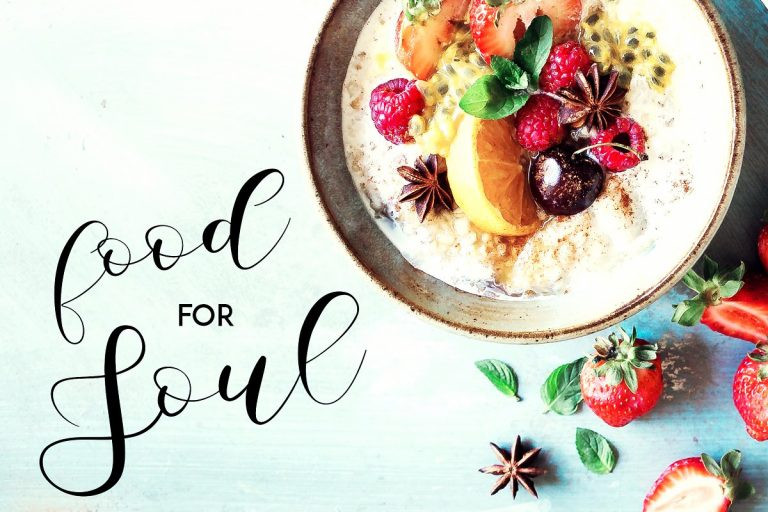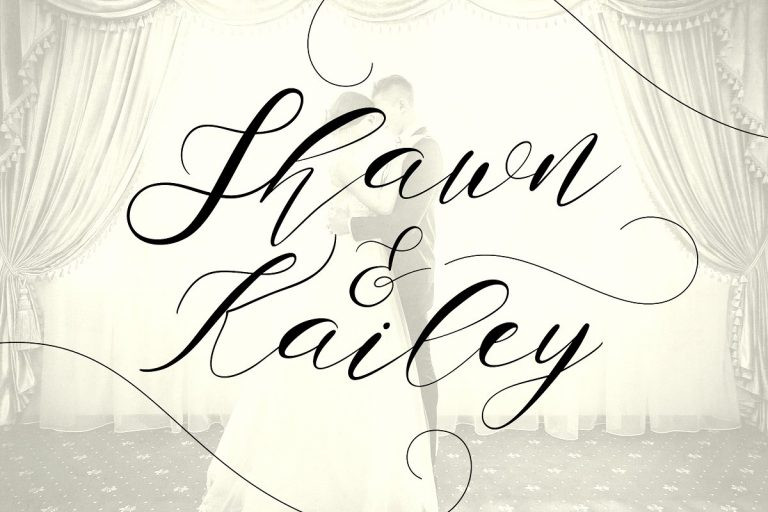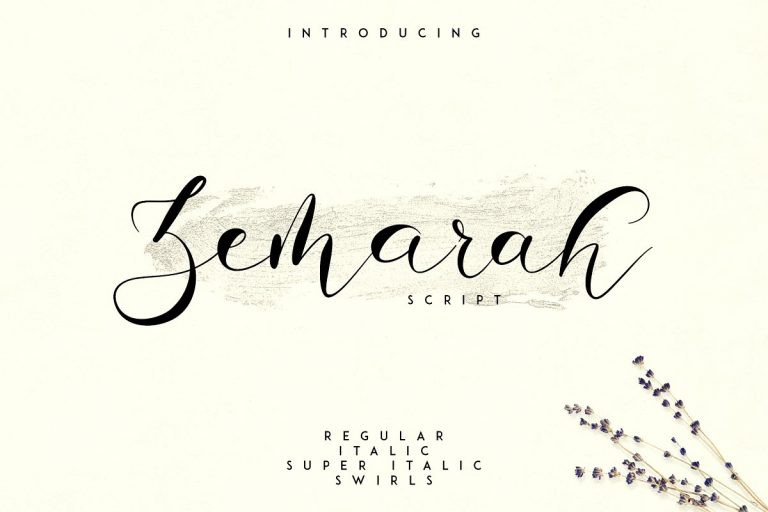
Zemarah Handwritten Font
Zemarah is not ordinary, elegant typeface with 3 styles, swirls and multilingual support. It’s a very versatile font that works great in large and small sizes.
Zemarah is perfect for branding projects, home-ware designs, product packaging, magazine headers – or simply as a stylish text overlay to any background image.